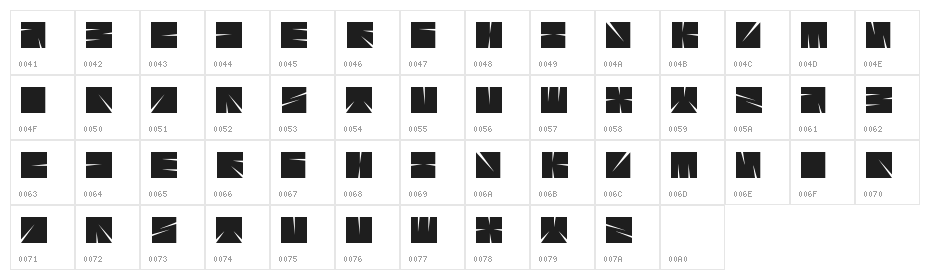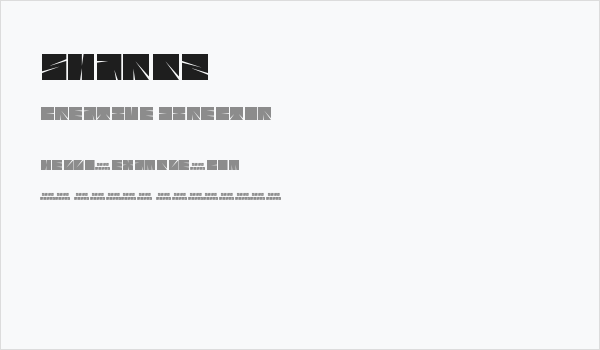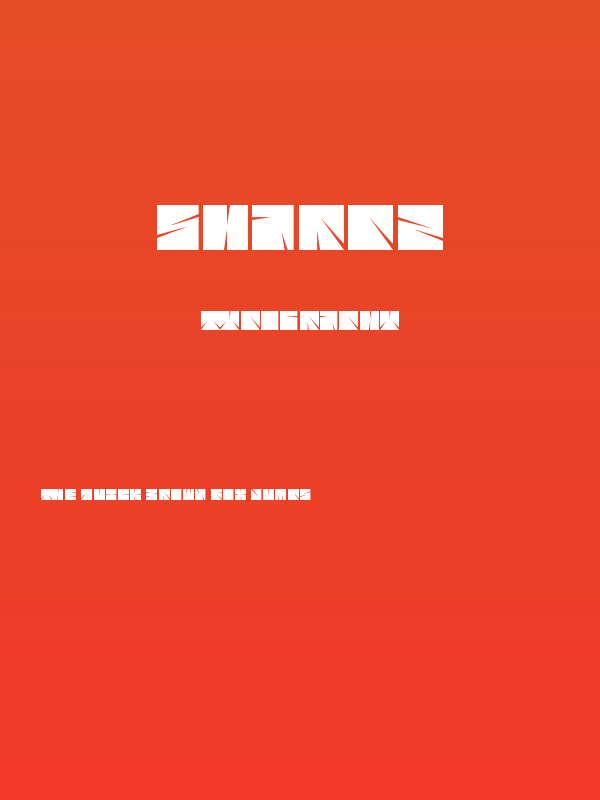
Sharpz Font
Sharpz Description
This font features a bold, geometric design with sharp angles and a blocky appearance. Each character is constructed with a series of straight lines and triangular cutouts, creating a dynamic and edgy look. The uppercase letters are particularly striking, with their solid, imposing forms. The lowercase letters maintain the same angular style, ensuring consistency across the typeface. Numbers and special characters are designed to match the boldness and geometric precision of the alphabetic characters. This font's unique style makes it stand out, ideal for projects that require a modern and impactful visual presence.